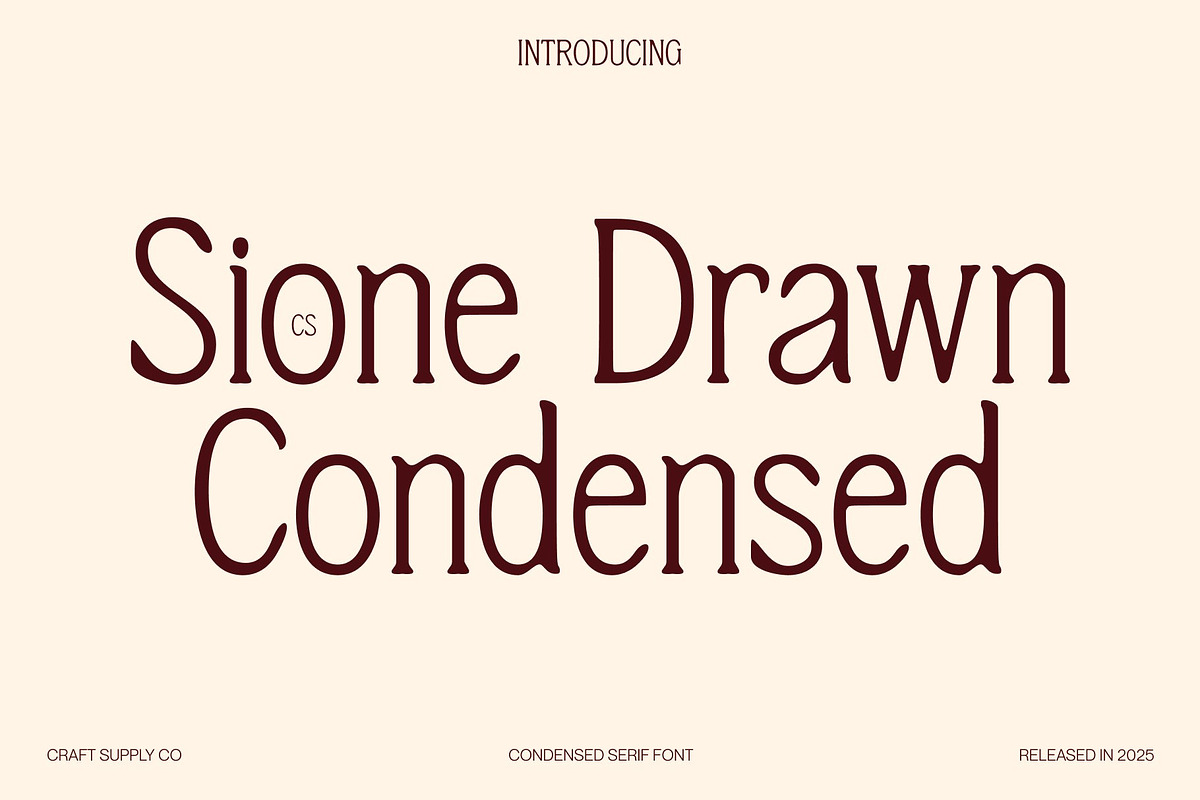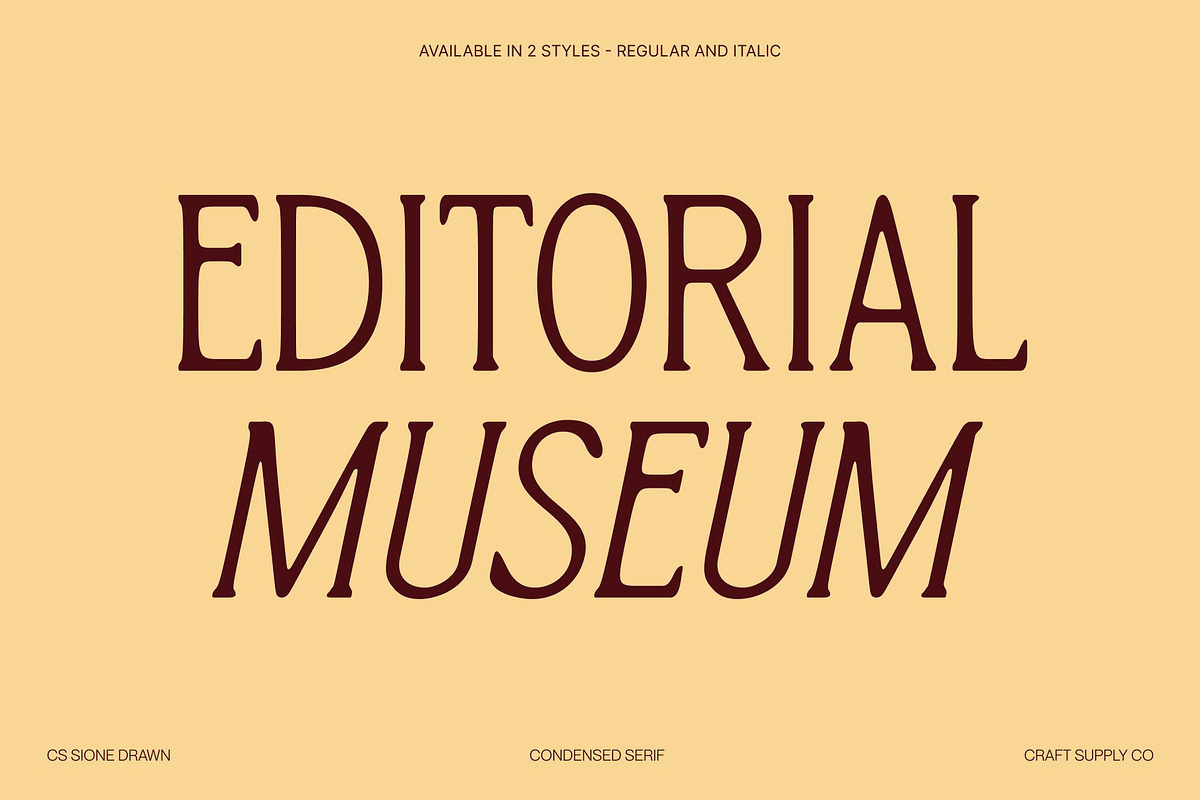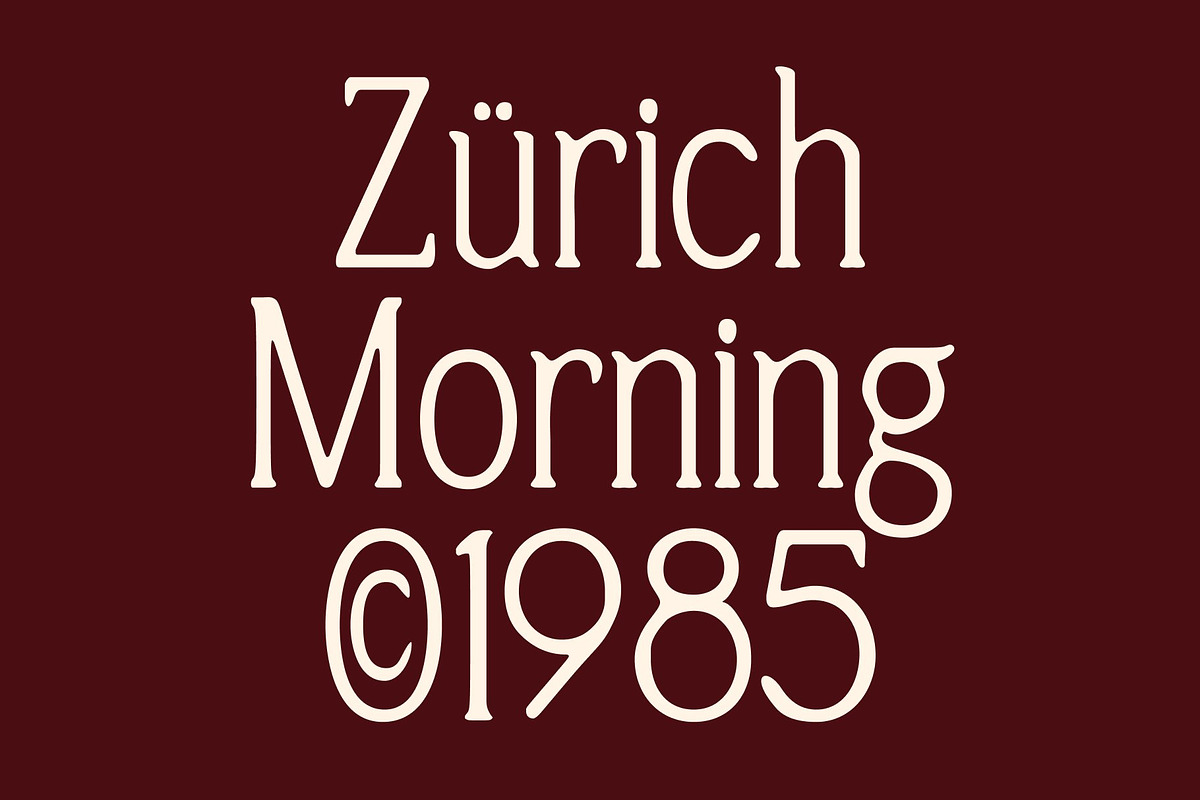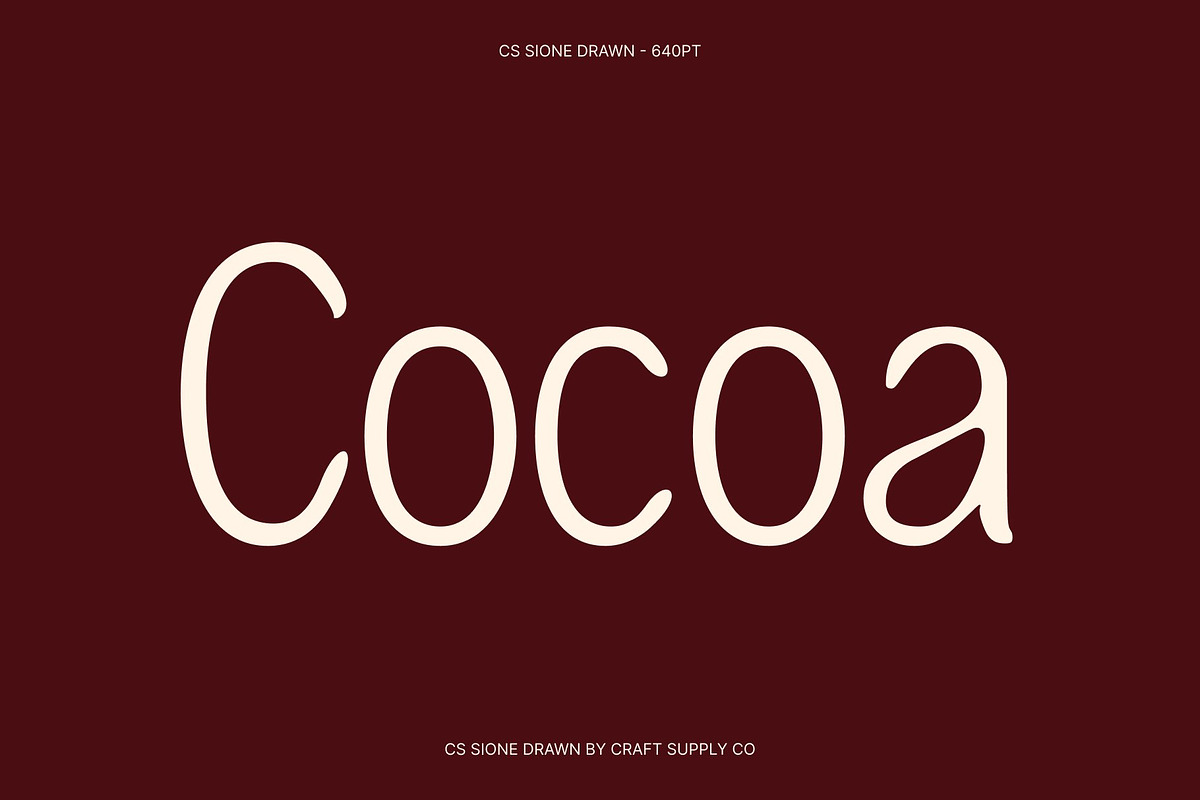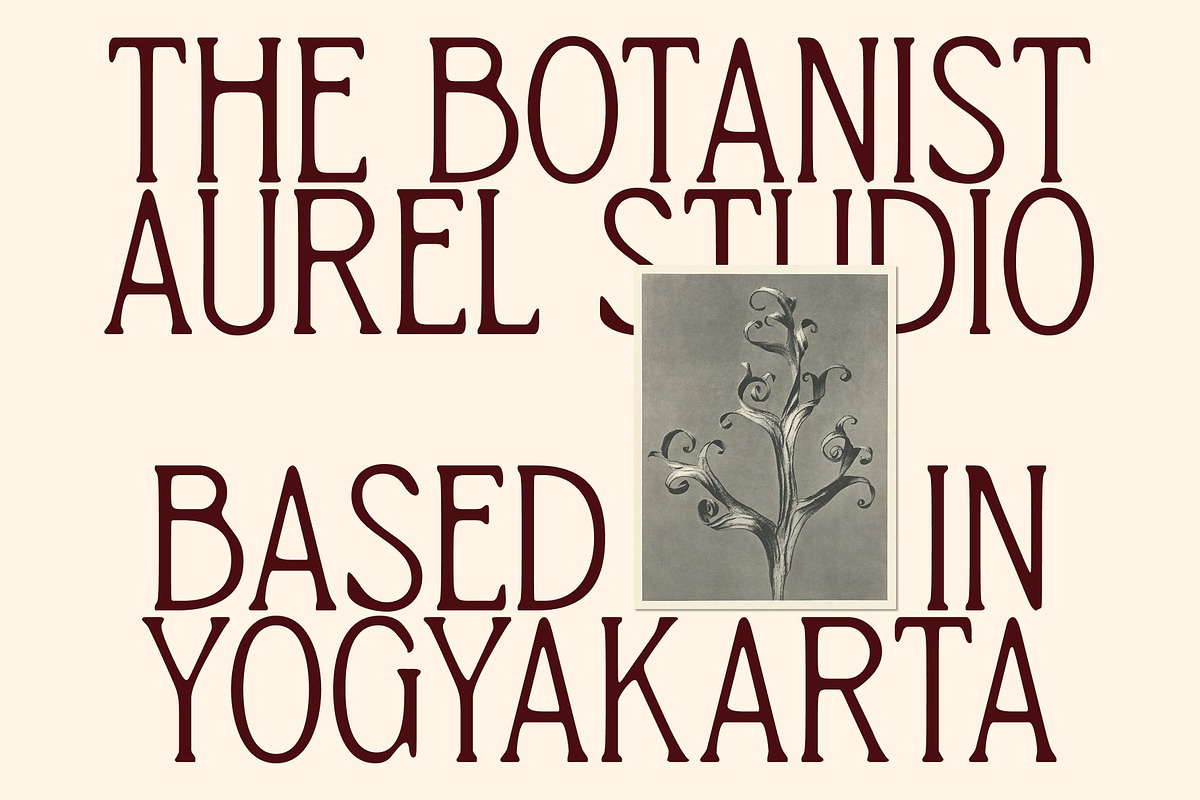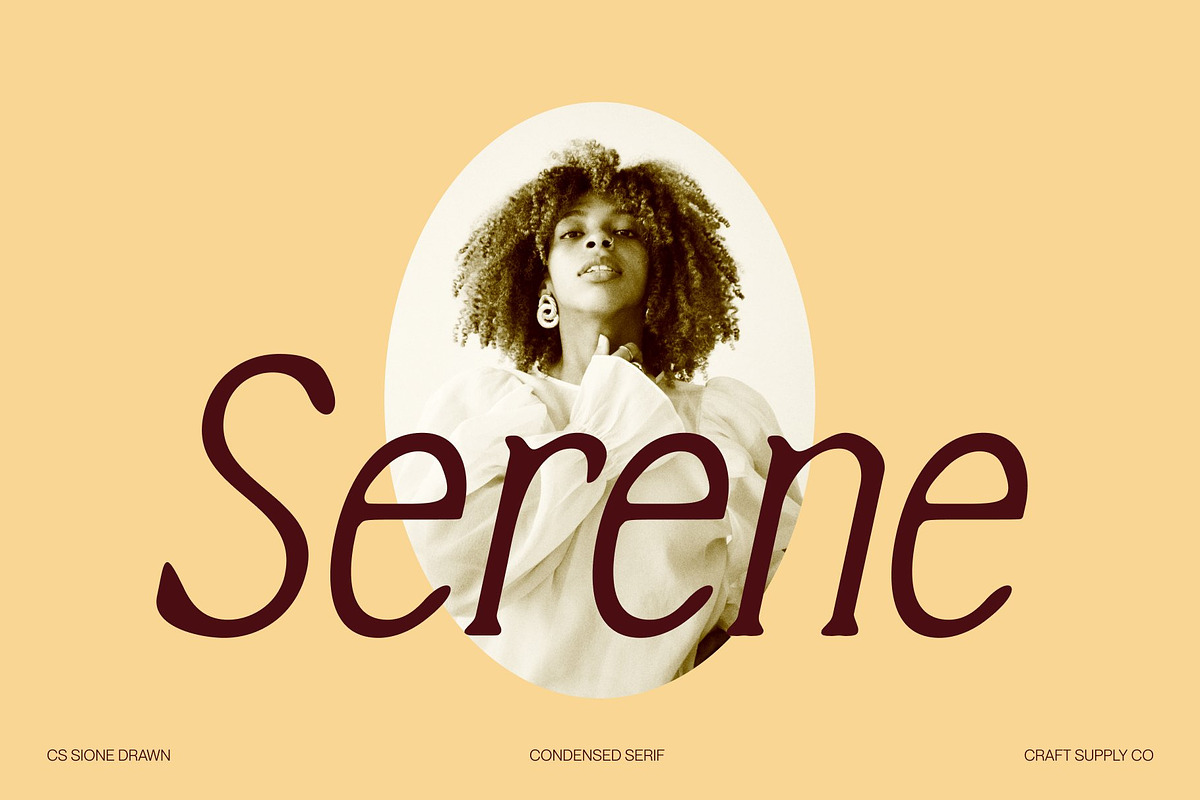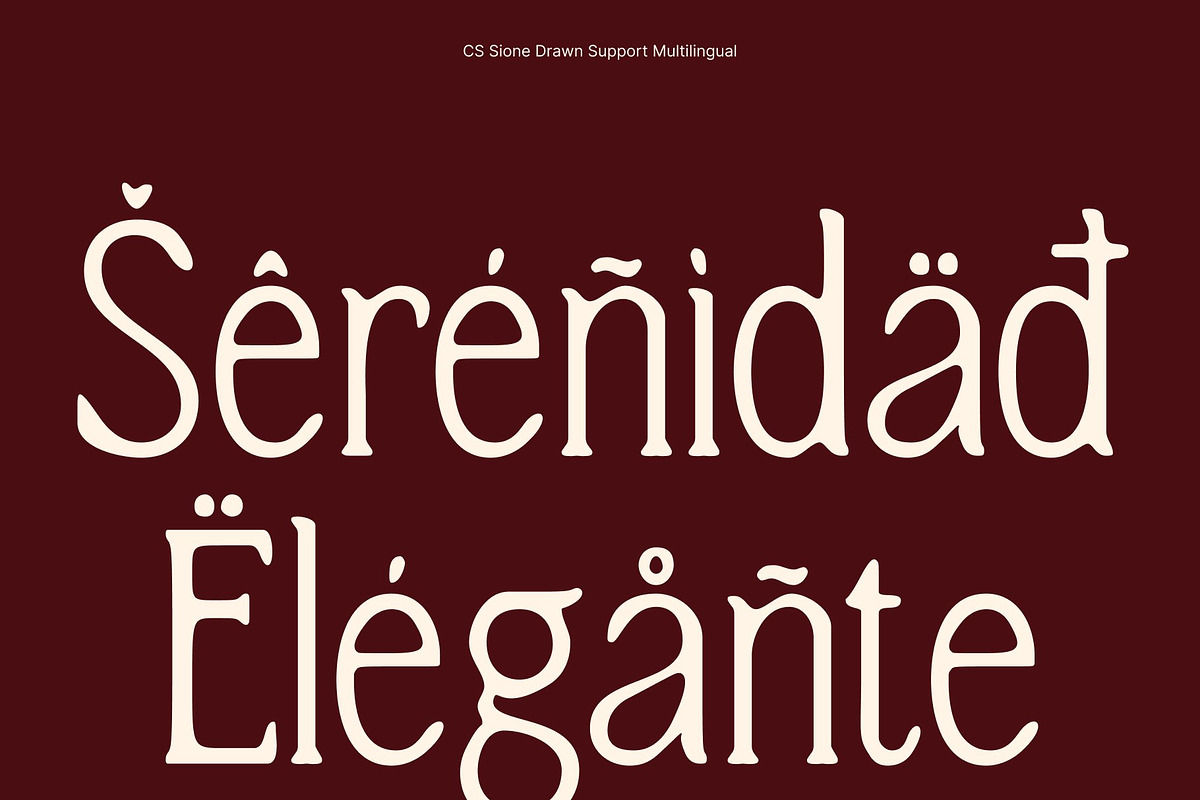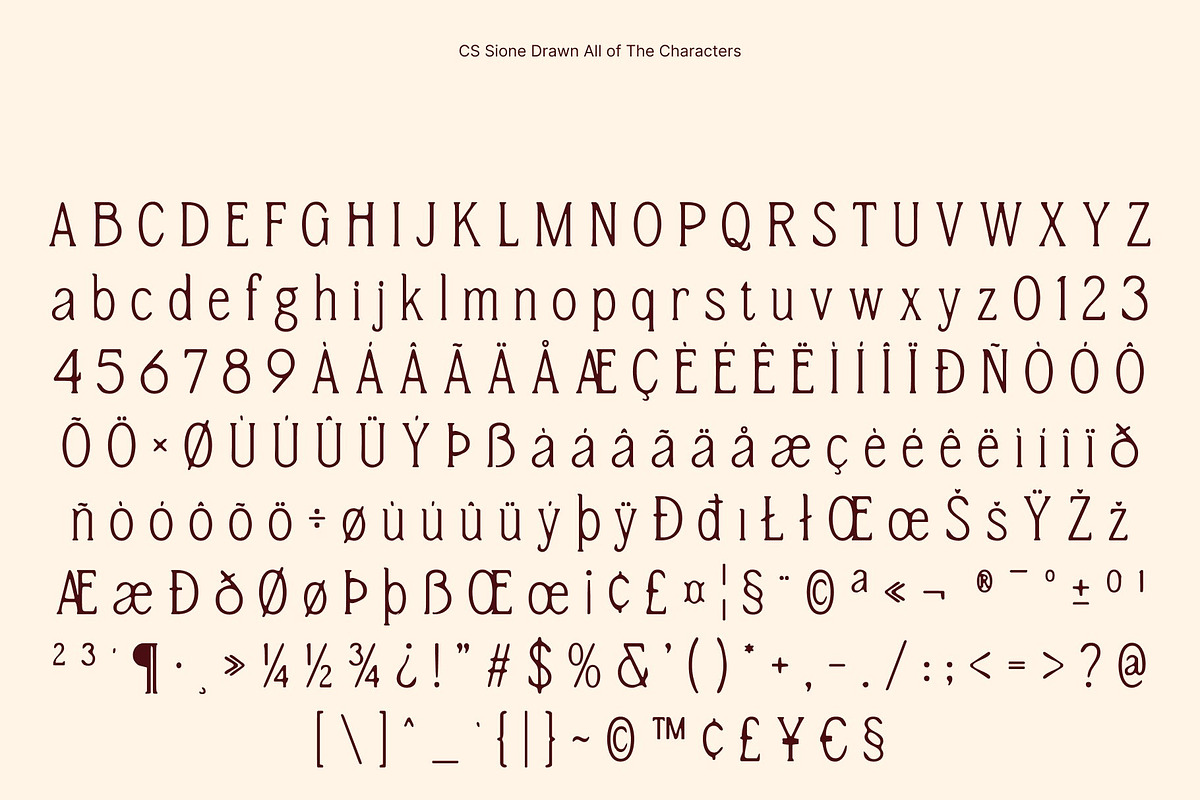
CS Sione Drawn
CS Sione Drawn – Refined Precision with Handcrafted Character
Refined Curves with Elongated, Graceful Details This is a serif font distinguished by refined curves and elongated details that create a polished, high-end appearance. Each letterform is carefully shaped with smooth transitions and extended proportions, resulting in a graceful flow that feels sophisticated and intentional.
Drawn Texture for Subtle Uniqueness The drawn texture introduces a delicate handcrafted quality that adds depth and individuality to the font. Gentle imperfections and organic line variations soften the precision of the serif structure, creating a balanced blend of control and artistic expression. This texture gives this font a distinctive character, ensuring the typography feels warm, authentic, and visually engaging rather than rigid or mechanical.
Minimalist Sensibility with High-End Appeal Designed with restraint and balance, integrates seamlessly into minimalist design systems. Its clean structure and elongated forms support layouts that prioritize space, clarity, and strong typographic hierarchy. The font communicates a premium tone through simplicity, making it especially effective for modern editorials, fashion layouts, and branding concepts that rely on subtle visual confidence.
Versatile Serif for Editorial and Branding Applications This font performs beautifully across a wide range of professional applications, including editorials, branding, logos, packaging, and refined promotional materials. Its refined proportions and hand-drawn nuance allow it to adapt across print and digital formats while maintaining a consistent, high-end presence.